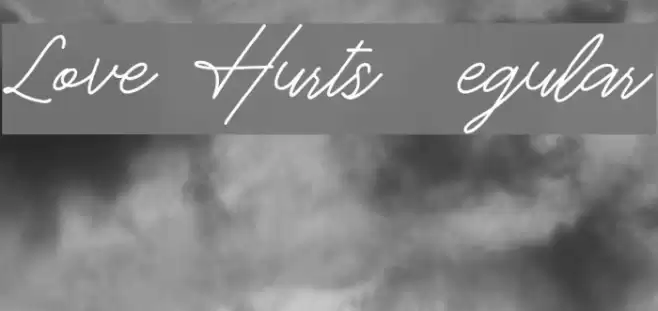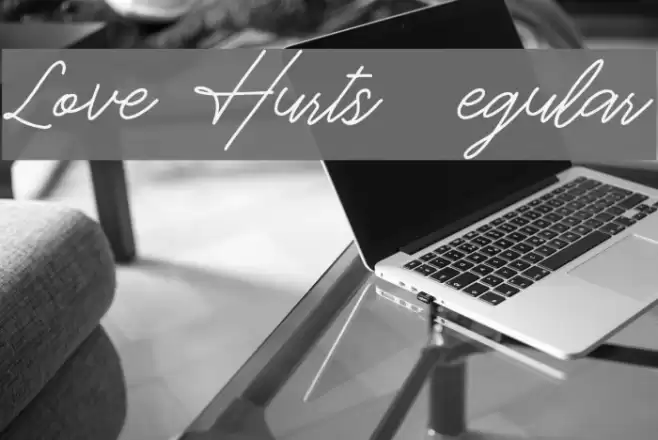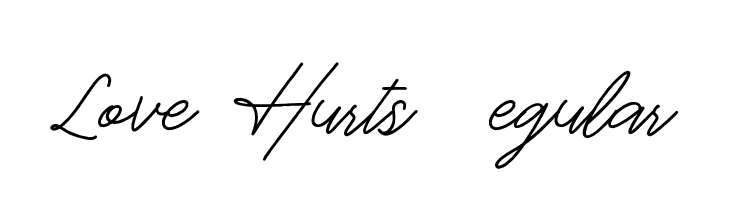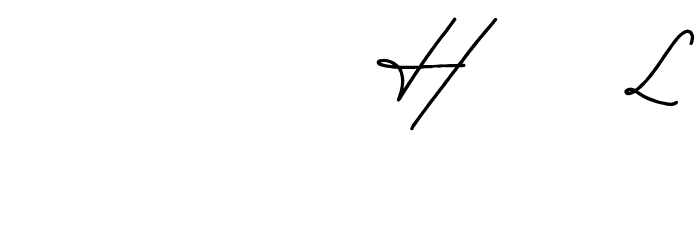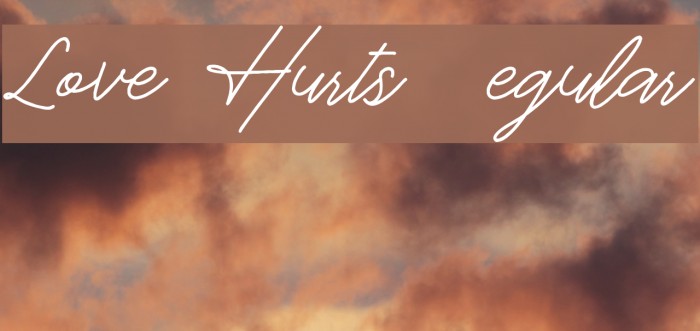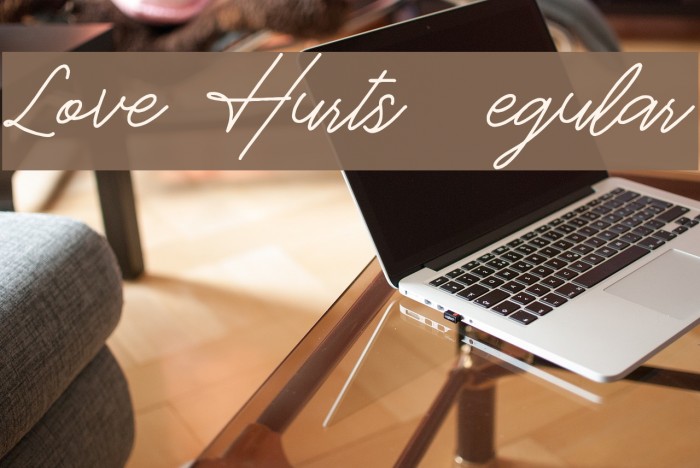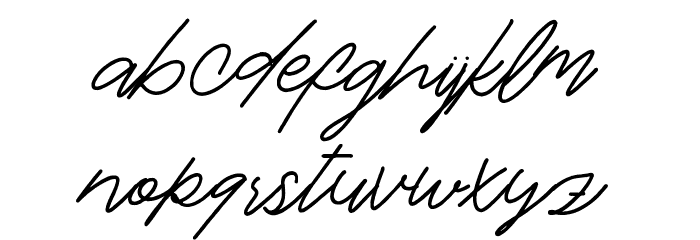
Love Hurts DEMO Regular Font
Love Hurts DEMO Regular Description
This font features a flowing, cursive style that mimics elegant handwriting. The letters are connected, with smooth curves and a consistent slant, giving it a natural and personal touch. The strokes are thin and delicate, providing a graceful appearance. The uppercase letters are slightly larger and more ornate, while the lowercase letters maintain a uniform height and spacing. This font exudes a sense of sophistication and romance, making it ideal for projects that require a personal or intimate feel.
A cursive, handwritten font with elegant, flowing strokes from Uncategorized fonts.
- Proposed Projects: Ideal for wedding invitations, personal letters, romantic cards, and branding that requires a personal touch.
- Overall Style: Elegant, Romantic
- Use Case: Invitations, Personal letters, Branding